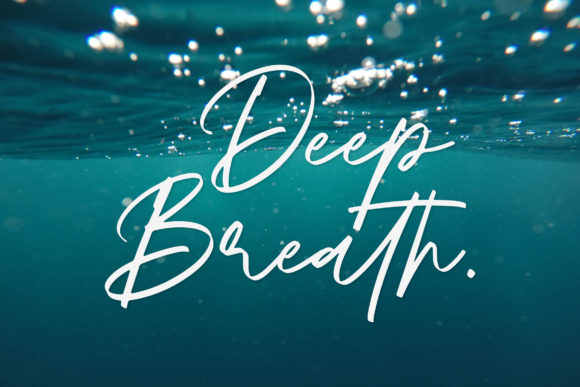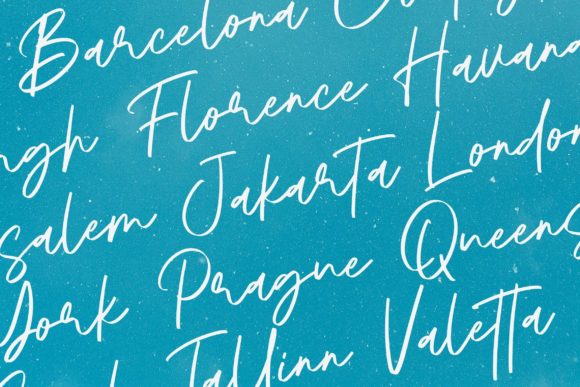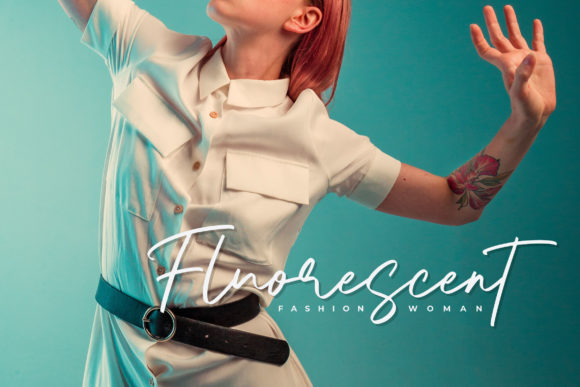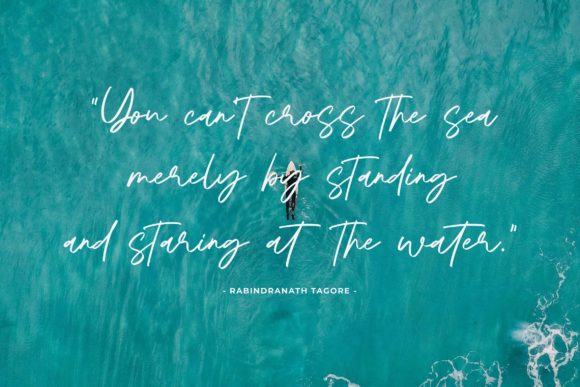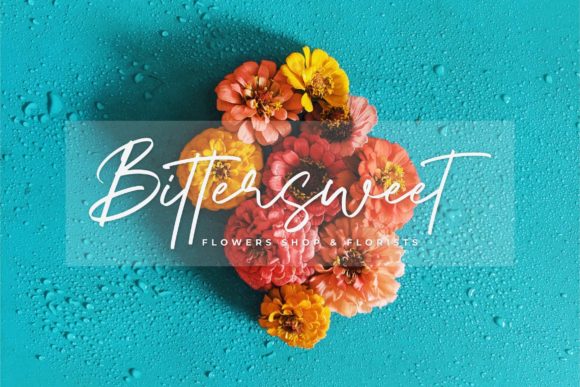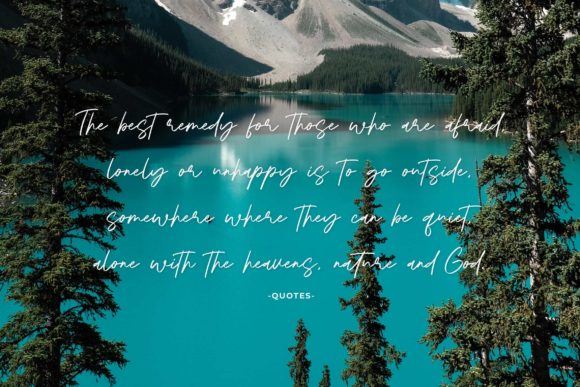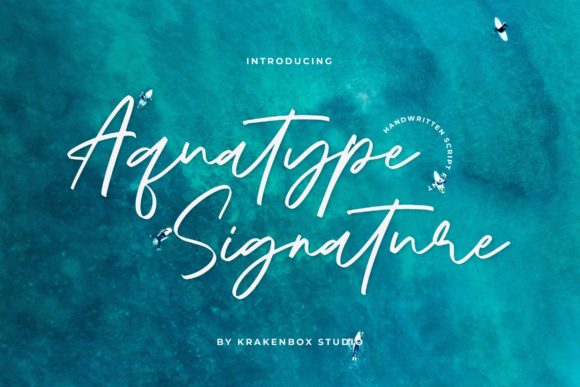
The Ultimate Guide to Aquatype Signature Font: Elevate Your Designs with Elegance
Have you ever been in the middle of a design project, and suddenly, you’re stuck on finding the perfect font? I recall a particularly frustrating experience while working on a wedding invitation card design. My client wanted a font that exuded elegance and sophistication, but I just couldn’t seem to find the right fit. That’s when I stumbled upon Aquatype Signature, a free-flowing script font that instantly elevated my design game. In this article, we’ll dive into the world of Aquatype Signature, exploring its features, uses, and everything in between.
A Personal Review: What I Love About Aquatype Signature
Aquatype Signature has become a staple in my design toolkit, and for good reason. Here are some aspects that I absolutely love about this font:
- ✨ Beautifully balanced character: Each letter is meticulously crafted to ensure a harmonious flow, making it perfect for large designs.
- ✅ High-quality vibes: This font screams professionalism, making it ideal for packaging products, event posters, and invitation cards.
- 💫 Versatility: Aquatype Signature can be used for a wide range of design projects, from flyers to mockups.
The Not-So-Perfect: A Few Quirks
While Aquatype Signature is an exceptional font, it’s not without its limitations. Here are a few quirks to keep in mind:
- 🤔 Limited use in body text: Due to its script nature, Aquatype Signature might not be the best choice for lengthy body text.
- ⚠️ Requires careful kerning: As with any script font, kerning can be a bit tricky, especially when working with certain letter combinations.
- Experiment with OpenType features, such as Stylistic Alternates and Glyphs, to add more flair to your design.
The Story Behind Aquatype Signature: Designer Inspiration
While the actual designer behind Aquatype Signature remains a mystery, it’s clear that they drew inspiration from the world of high-end design. With its beautiful, flowing script and balanced character, Aquatype Signature is a testament to the power of typography in elevating design.
| Q: What is the best use for Aquatype Signature? | A: Aquatype Signature is ideal for designs that require a high-end, elegant feel, such as packaging products, invitation cards, and event posters. |
| Q: Can I use Aquatype Signature for body text? | A: While possible, Aquatype Signature is better suited for headlines and titles due to its script nature. |
| Q: Is Aquatype Signature suitable for digital use? | A: Yes, Aquatype Signature can be used for digital designs, such as social media graphics and website headers. |